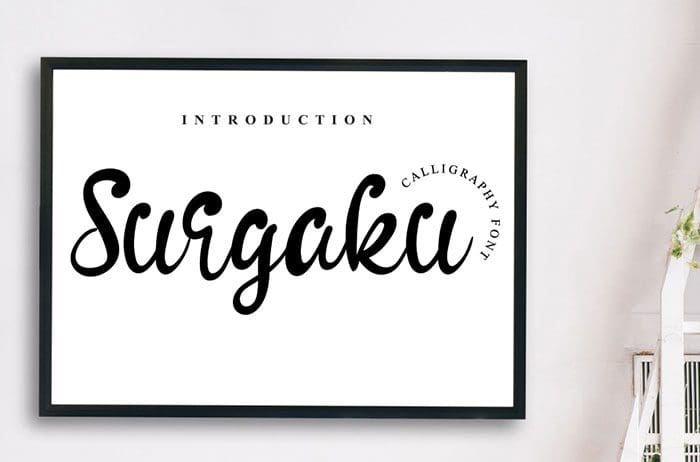
Surgaku Calligraphy Font
Free Surgaku is a fun calligraphy font. It has a friendly feel that makes it perfect for creating amazing logos, beautiful stationery and much more! Designed this font by Andika Studio. You can also search more freeĀ Calligraphy Fonts.